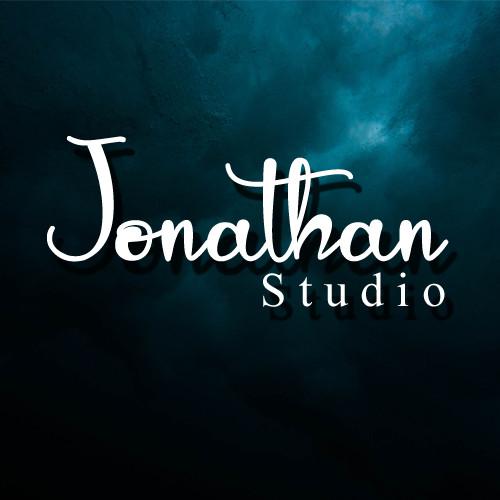
Valleri Font Description
Valleri is a sweet, stunning, and modern script font that will add a luxury spark to any creative project. It is great for wedding invitations, logos, business cards, brand identity, craft designs, book titles, packaging, or any other design that may need a romantic, handwritten touch. This font is PUA encoded, which means you can access all of the glyphs and swashes with ease!